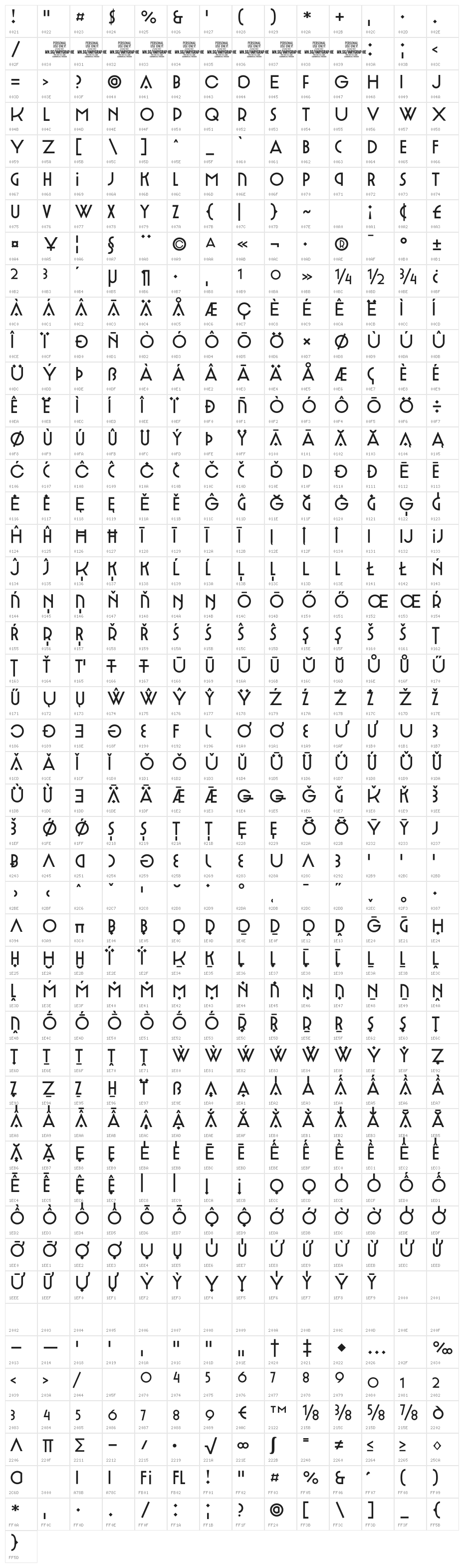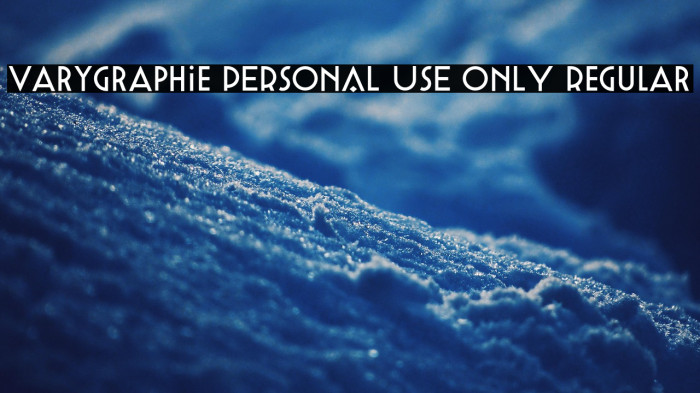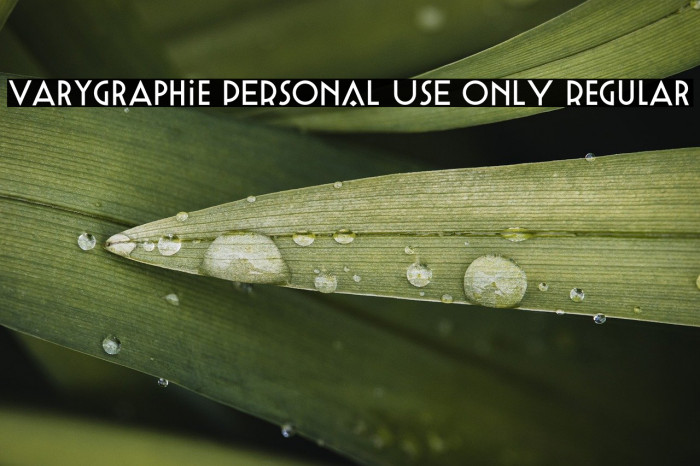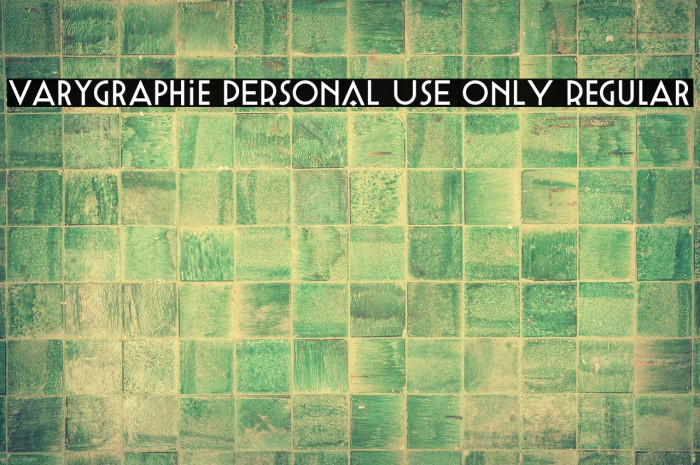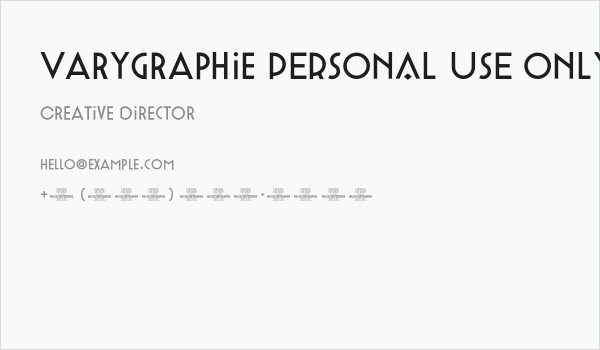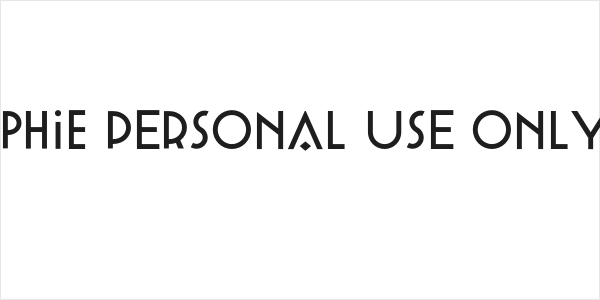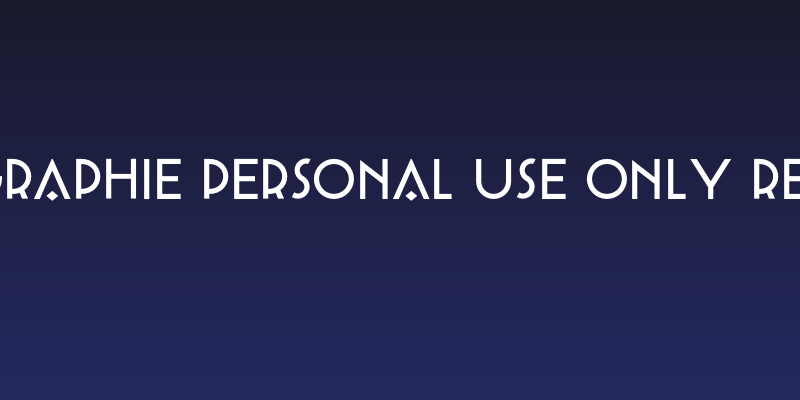
Varygraphie PERSONAL USE ONLY Regular Font
Varygraphie PERSONAL USE ONLY Regular Description
This font features a modern and geometric design with clean lines and sharp angles. The uppercase letters are bold and striking, while the lowercase letters maintain a consistent style with a slightly more delicate touch. The numerals and special characters are designed to complement the overall aesthetic, offering a cohesive look across all characters. The font's unique style makes it suitable for attention-grabbing headlines and creative projects that require a contemporary flair.
| Proposed Projects | Ideal for branding, advertising, posters, and digital media where a modern and bold statement is needed. |